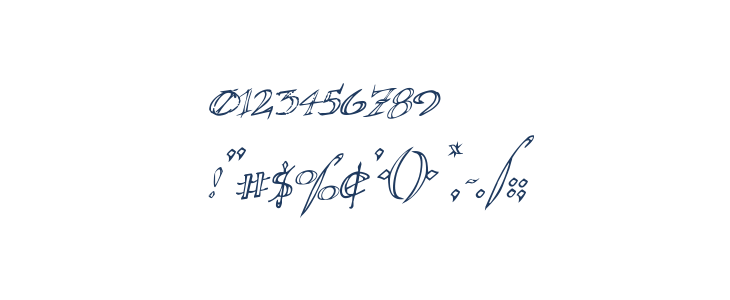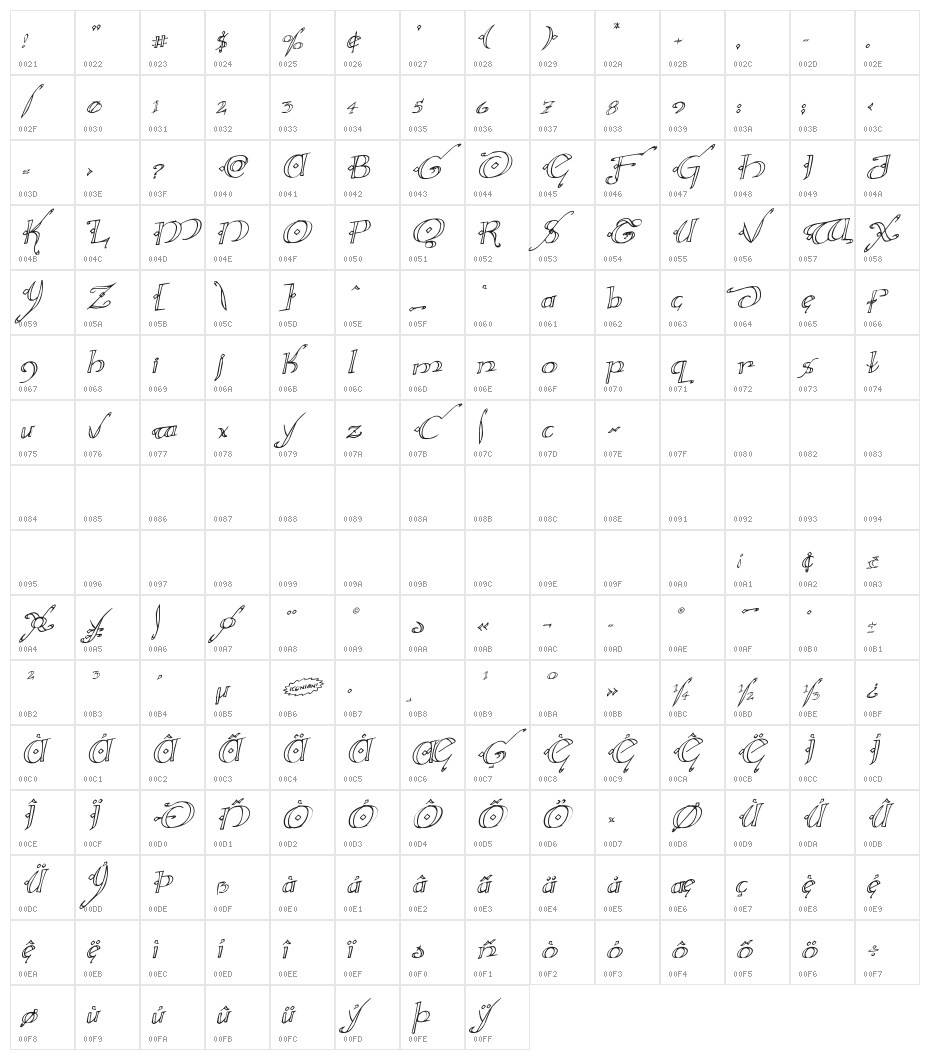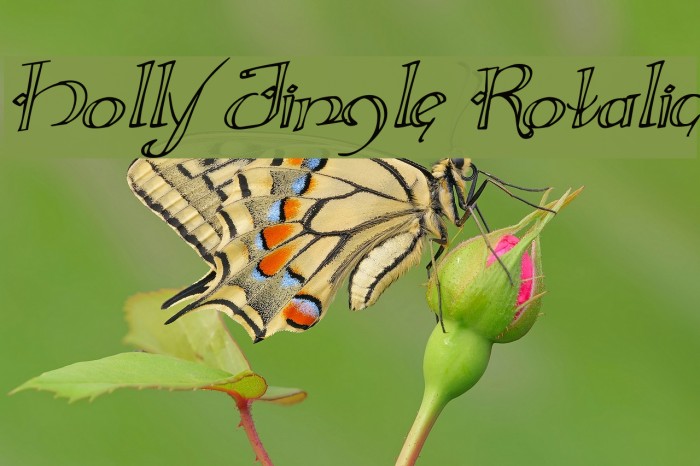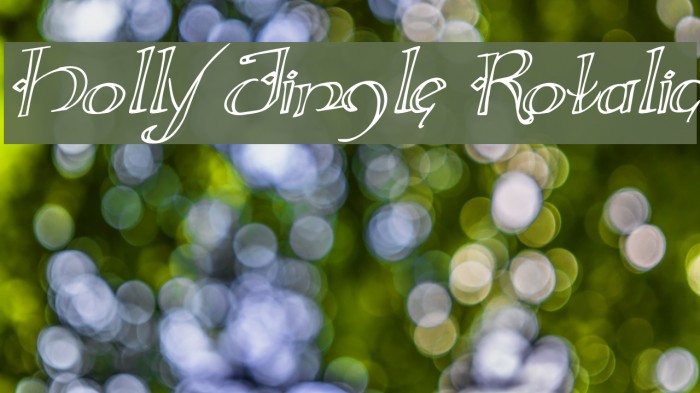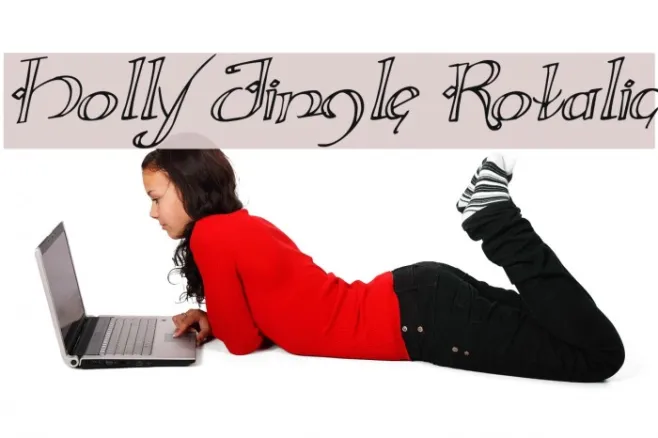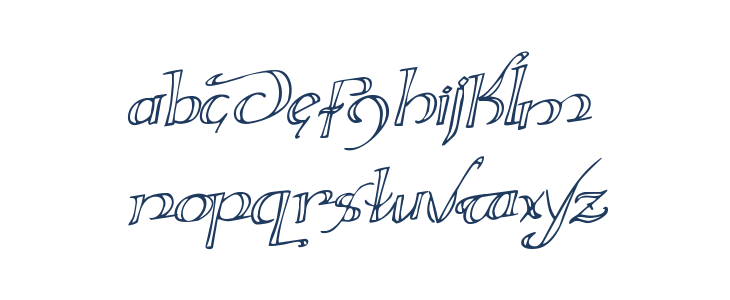
Holly Jingle Rotalic Font
Holly Jingle Rotalic Description
This font features an elegant and whimsical design, characterized by its flowing, cursive style with a playful twist. The letters are adorned with unique, decorative elements that give them a festive and lively appearance. The strokes are thin and delicate, with occasional flourishes that add to the overall charm. The font maintains a consistent slant, enhancing its dynamic and energetic feel. It is well-suited for creative projects that require a touch of elegance and fun, such as holiday cards, invitations, and festive branding. The numbers and special characters are designed to complement the letters, maintaining the same decorative style.
Proposed ProjectsIdeal for holiday cards, festive invitations, and creative branding projects.